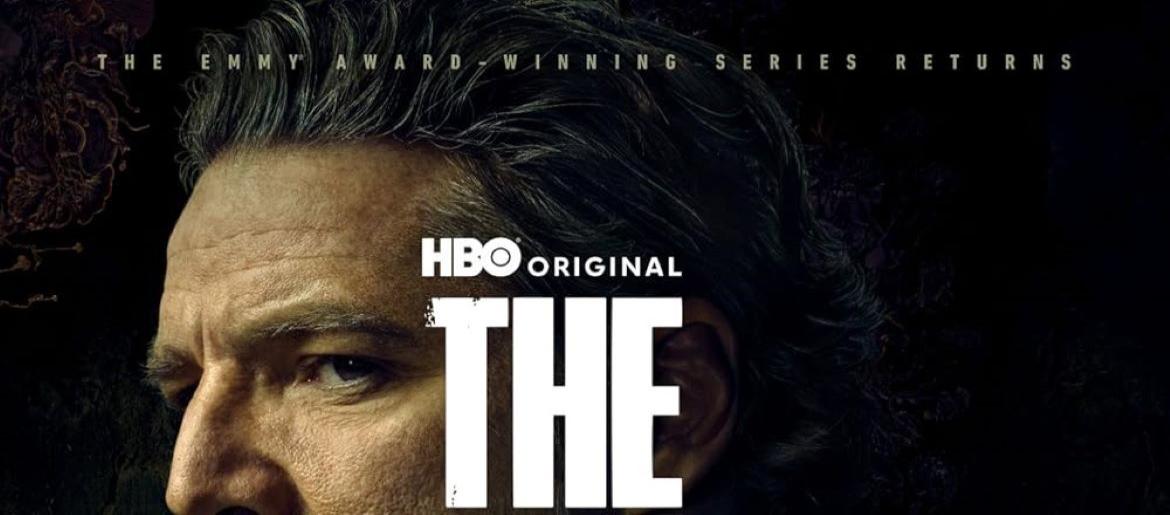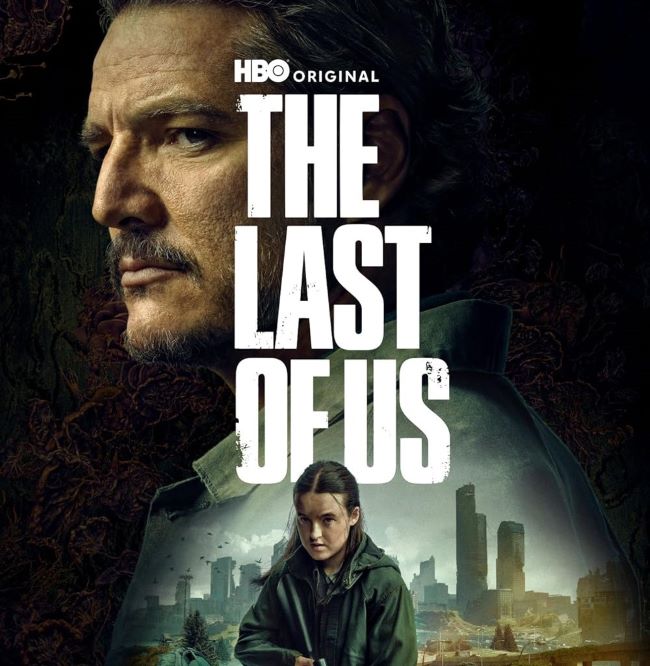
The Last of Us font is bold, distressed, and unapologetically raw—perfectly matching the survivalist tone of the series. Its heavy, block-style lettering feels weathered and worn, as if it has endured the same harsh world as the characters themselves. The Last of Us font communicates decay, danger, and resilience all at once, making it an iconic choice for fans and designers who want to capture the gritty, post-apocalyptic atmosphere of the story.
People searching for the Last of Us font are often looking to recreate that intense, immersive style for posters, fan art, or gaming-inspired projects. Its rough texture and strong presence give it an edge that’s ideal for designs rooted in survival, horror, or dystopian themes. The Last of Us font doesn’t just look powerful—it feels like part of the ruined world it represents.
The series The Last of Us, adapted from the acclaimed video game, premiered in 2023 and quickly became a cultural phenomenon. Following Joel and Ellie on their journey through a world devastated by a fungal outbreak, the story explores themes of love, loss, and survival. Much like the Last of Us font, the series leaves a lasting impression: dark, emotional, and unforgettable. You can also check our free fonts collection.